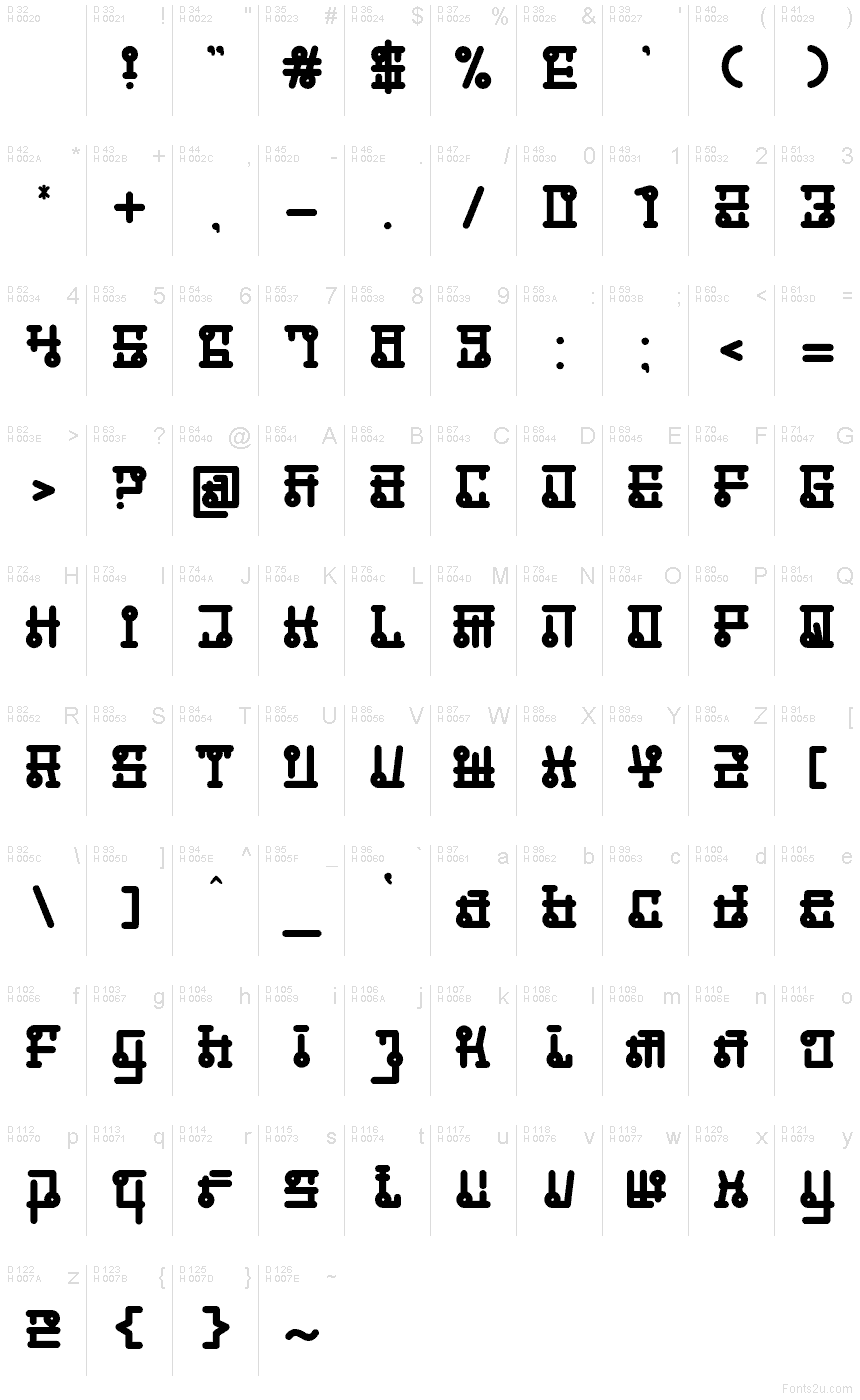
Hakorel font by Dhabee Studio is a free foreign decorative font that looks like it was carved from a futuristic control panel. Chunky black strokes connect into tight, almost circuit-like paths, while the repeated circular nodes at the ends feel like glowing buttons or mechanical pivots. The rhythm is dense and connected, giving words a coded, otherworldly texture that reads more like a mysterious symbol system than everyday text.
Using Hakorel, you can instantly give game titles, sci-fi posters, tech branding, event graphics, or YouTube thumbnails a bold “alien interface” vibe. This free font shines when used large, where its loops and dots can really show off, and it works beautifully paired with a clean geometric sans for smaller supporting copy. Reach for Hakorel whenever you need typography that feels foreign, futuristic, and unmistakably custom.